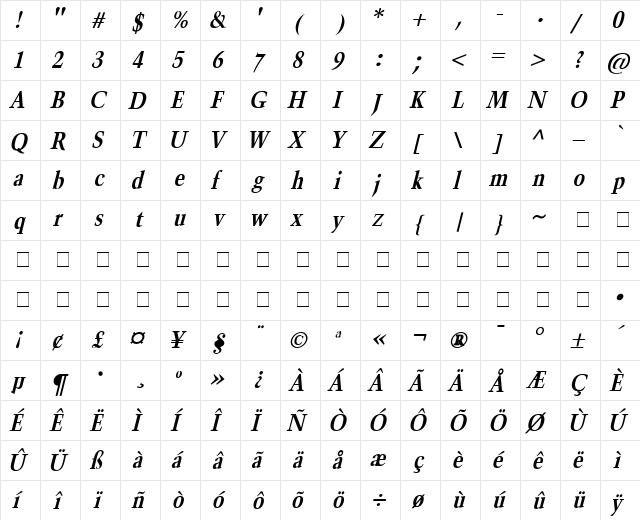
Horn Bold Italic Font Preview
Design Context for Horn Typeface
Horn takes a measured approach to typography — its balanced proportions and neutral character make it a reliable workhorse for both digital and print work. Its italic angle brings a sense of urgency and motion to the letterforms. The heavy weight commands attention and anchors typographic hierarchies.
Pro Tip: Try Horn for annotation and caption copy alongside an upright companion — the contrast in angle creates a dynamic but ordered typographic system.